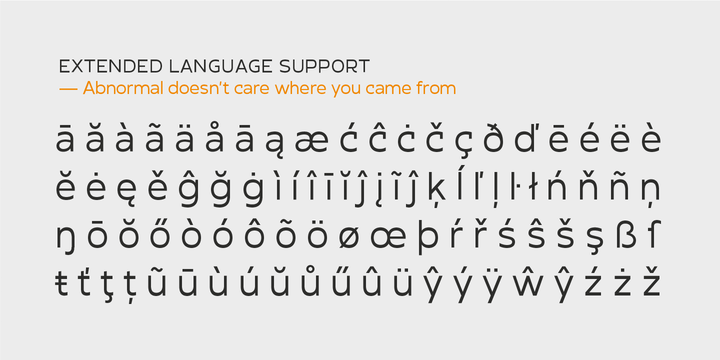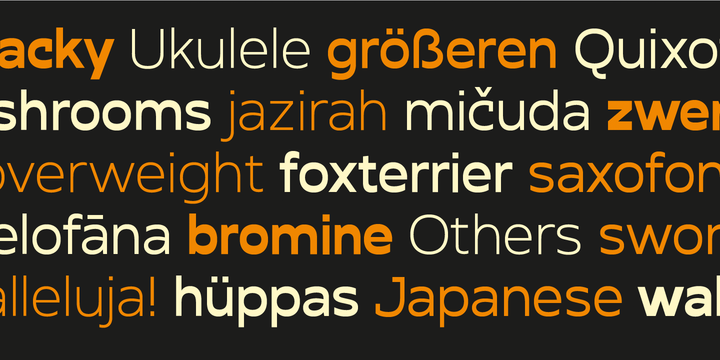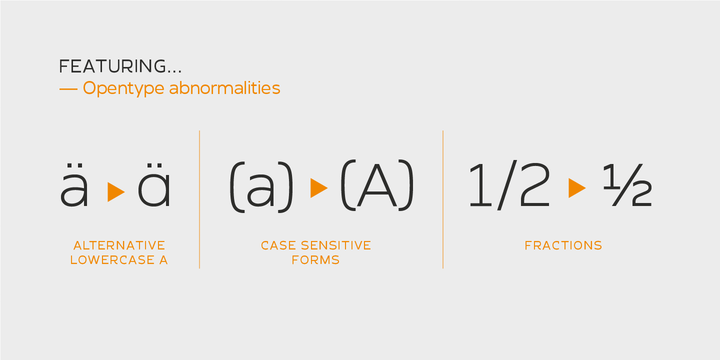
Abnormal Font Family
Are you getting bored by the growing number of sans-serif fonts that absolutely lack character? Do clean typography and sleek curves repulse you? Maybe it’s time to forget the normal and set sail into the murky waters of abnormality.
Abnormal features four styles, ranging from an almost monolinear Light to a reverse-contrast Bold. The design pays homage to 19th century poster typefaces, with their crude character and unconventional means of catching the eye. It is one of the few typefaces out there that features reversed contrast and no serifs. These properties make it an ideal choice for large headlines, posters, flyers and essentially all applications where getting attention is a paramount.
• Designers: Jan Buble
Abnormal Light
Abnormal Regular
Abnormal SemiBold
Abnormal Bold